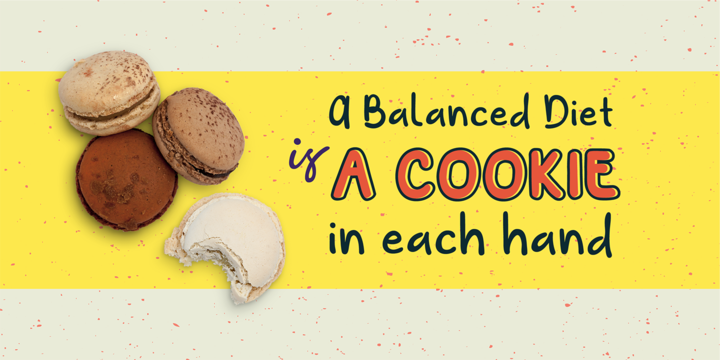
Adventura Font Family
Introducing Adventura Font Family! Adventura designed by me55enjah. Handmade typeface inspired by permanent marker strokes. Simple, bold and casual shape strokes make this typeface easy to read event in a bunch of text. This can be useful for title, quotes, label, etc. Simple, casual and playful.